Fancy Letter O Font
Every fancy font style rendered for just the letter O, so you can compare them side by side before picking one for an initial, a logo, or a single-character tag.
The Letter O in Every Style
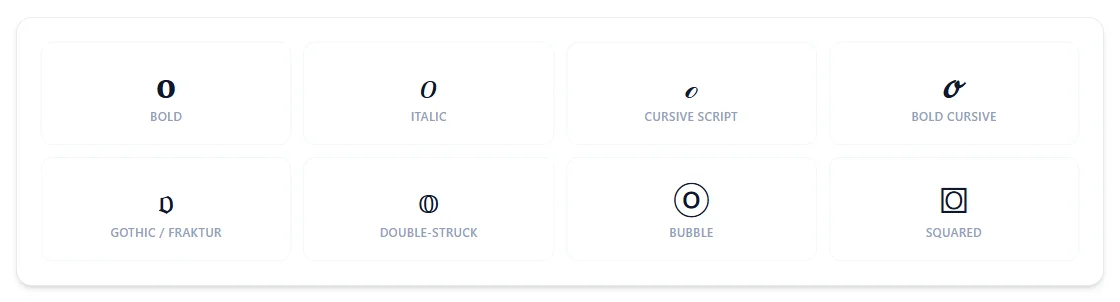
O is about as symmetrical as letters get: it looks identical upside down, and its lowercase script form (ℴ) is the one borrowed exception in an otherwise dedicated set — a character math uses to mean "on the order of."
Does O look the same upside down?
Yes — O is fully symmetrical, so rotating it 180 degrees produces an identical shape.